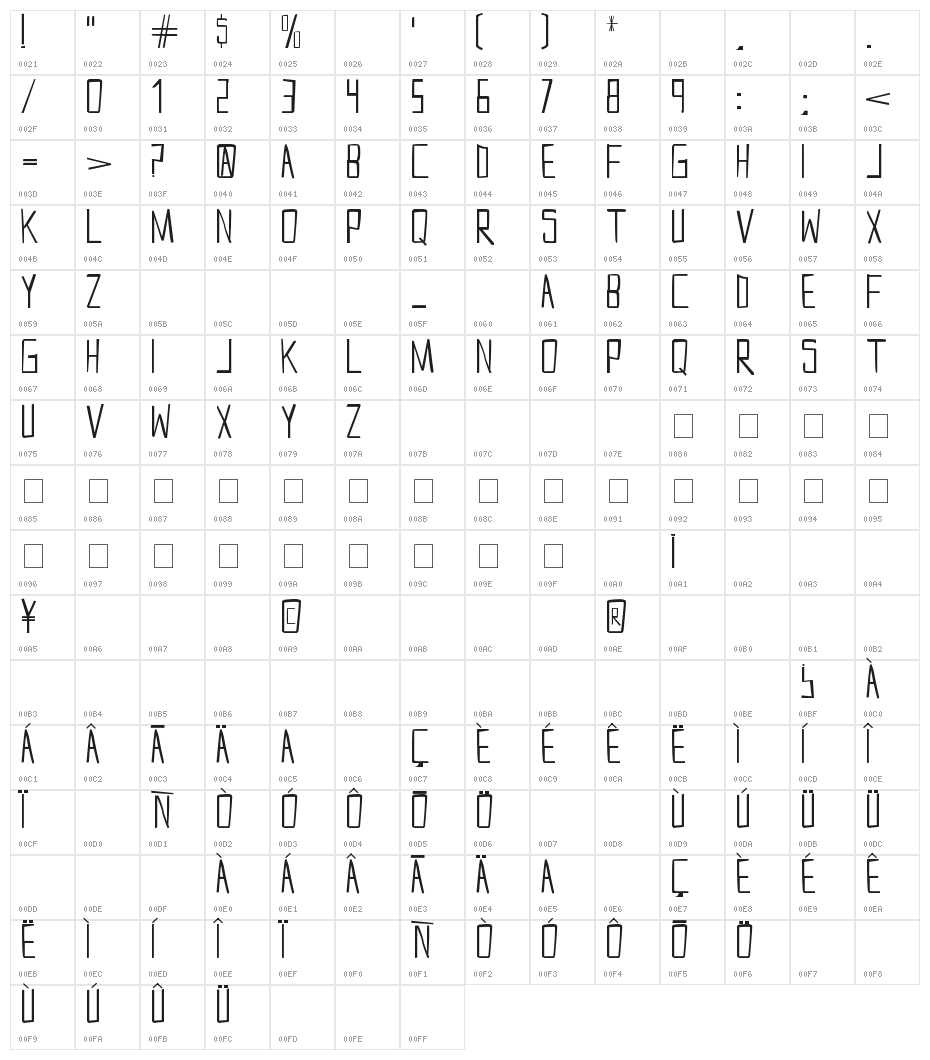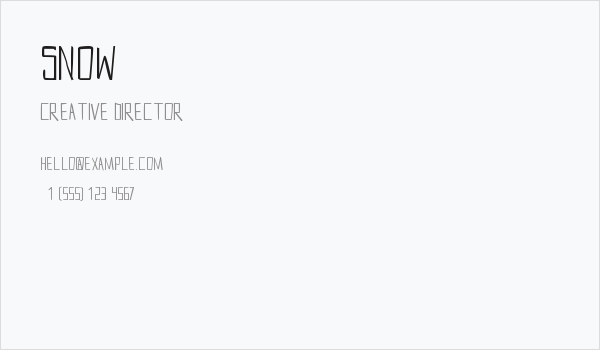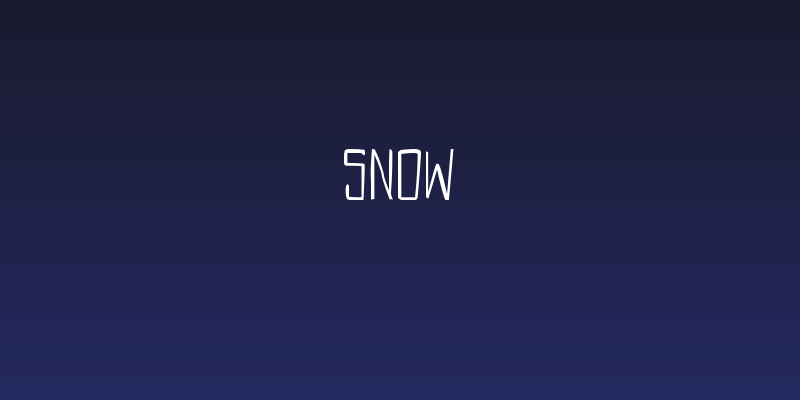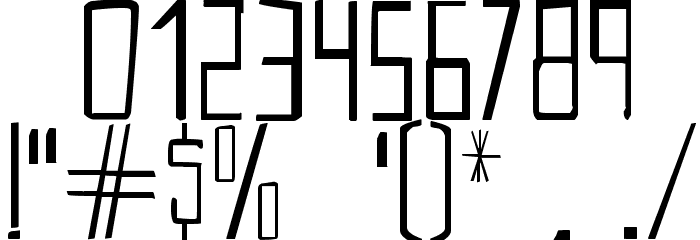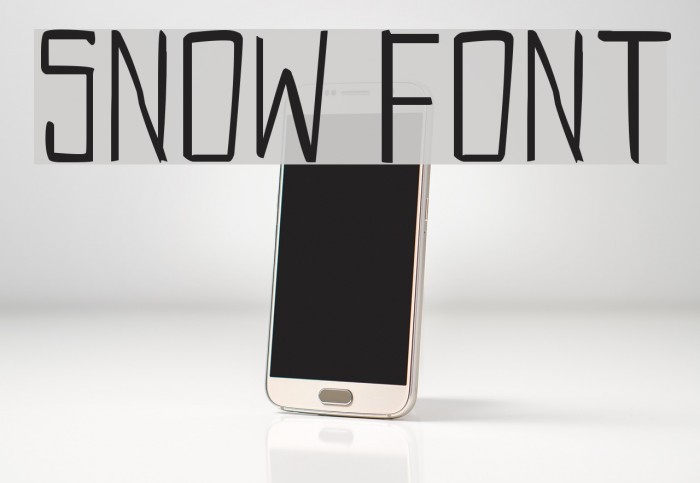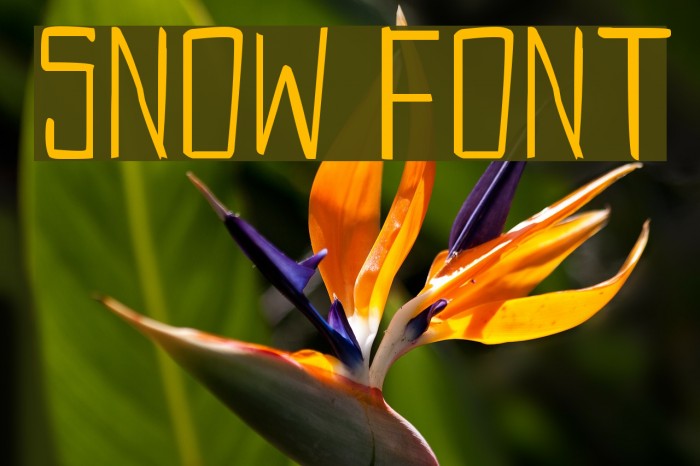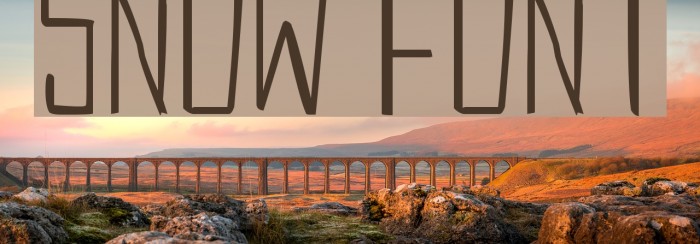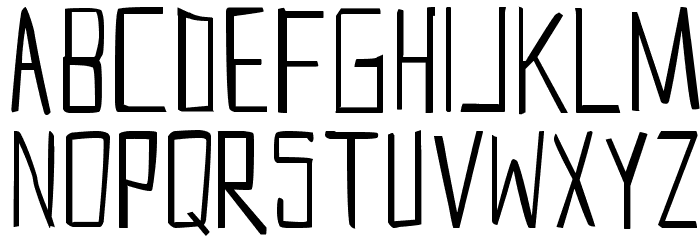
SNOW Font
SNOW Description
This font features a modern and geometric style with a distinct angular design. The characters are constructed with straight lines and sharp angles, giving it a futuristic and technical appearance. The uppercase and lowercase letters maintain a consistent height, contributing to a uniform look. The numerals and special characters follow the same design principles, ensuring cohesion across all elements. The font's clean and precise lines make it suitable for digital and print media, where clarity and readability are essential.
| Use Case | Headlines, Logos, Digital interfaces |
| Proposed Projects | Ideal for technology branding, digital interfaces, and modern poster designs. |